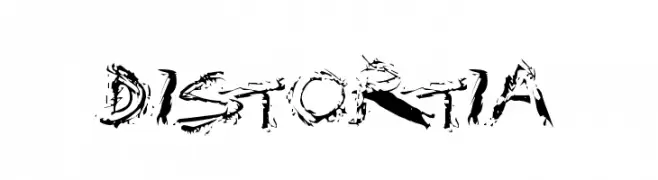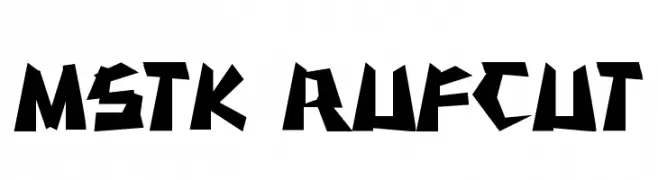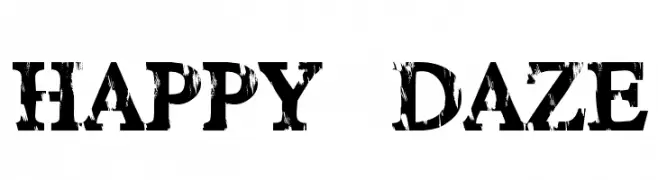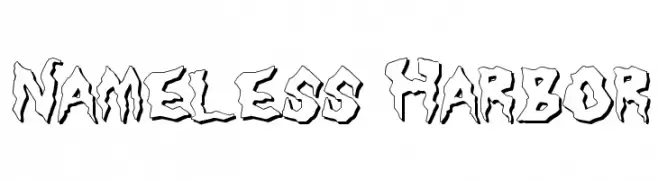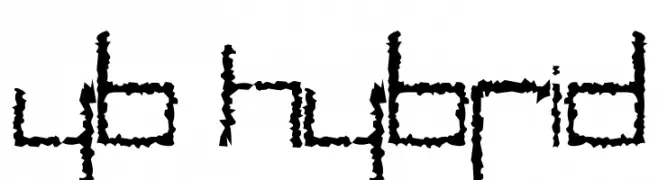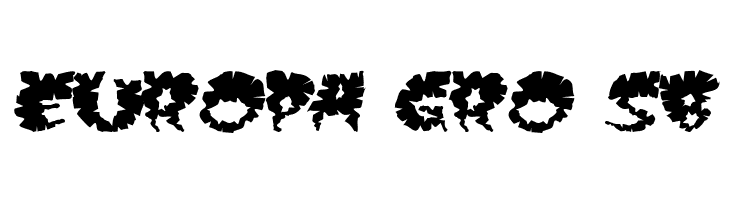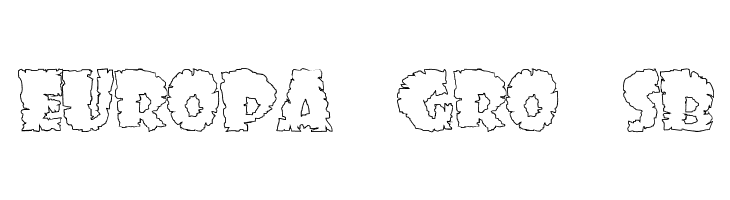
( Fonts by Utopiafonts )
A distressed, grunge-style font with jagged edges and a chaotic appearance.
A bold, decorative font with jagged, leaf-like edges for an organic look.
A bold, jagged font with a torn paper effect, perfect for dramatic designs.
( Fonts by pOPdOG fONTS - Dimitris Kolyris - popdog_fonts.tripod.com OFF SITE )
A bold, distressed font with a vintage, grunge aesthetic.
( Fonts by Cumberland Fontworks - http://www222.pair.com/sjohn/fonts.htm - S. John Ross )
A bold, jagged font with a rugged, hand-carved appearance.
A bold, brush-style font with dynamic, jagged strokes.